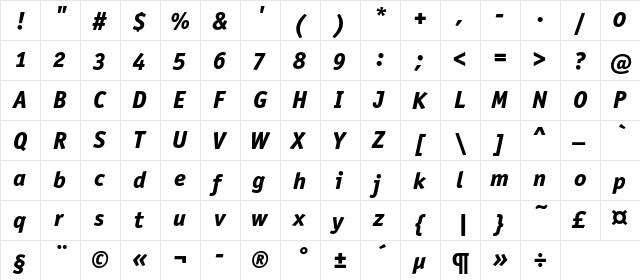
OfficinaSansExtraBoldOSC Italic Font Preview
Design Context for OfficinaSansExtraBoldOSC Typeface
OfficinaSansExtraBoldOSC takes a measured approach to typography — its balanced proportions and neutral character make it a reliable workhorse for both digital and print work. Its italic angle brings a sense of urgency and motion to the letterforms. The heavy weight commands attention and anchors typographic hierarchies.
Pro Tip: Use OfficinaSansExtraBoldOSC for emphasis, pull quotes, and subheadings where its slanted energy can add rhythm to the layout.